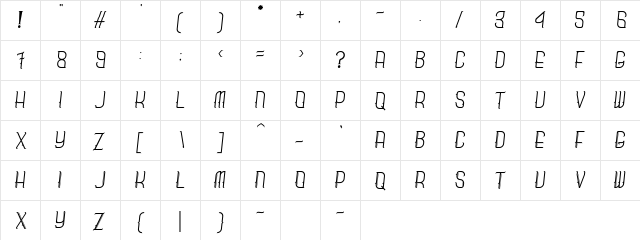
Breadly Italic
Design Context for Breadly Typeface
Breadly takes a measured approach to typography — its balanced proportions and neutral character make it a reliable workhorse for both digital and print work. The slanted form adds forward momentum and visual energy.
Pro Tip: Try Breadly for annotation and caption copy alongside an upright companion — the contrast in angle creates a dynamic but ordered typographic system.